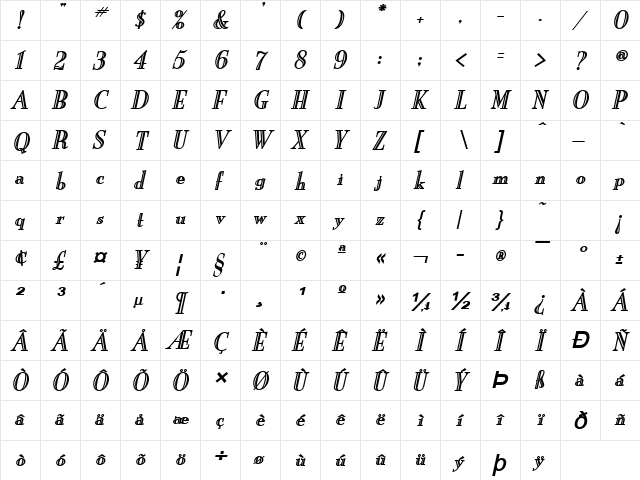
New England Engraved BoldItalic Font Preview
Design Context for New England Engraved Typeface
New England Engraved is built around its visual character rather than neutral utility — its distinctive forms are designed to make an impression at display sizes. Its italic angle brings a sense of urgency and motion to the letterforms. The heavy weight commands attention and anchors typographic hierarchies.
Font Pairing: Pair with a clean neutral sans-serif for body copy to let New England Engraved's character lead without overwhelming the composition.
Pro Tip: Treat New England Engraved as the centrepiece of your typographic hierarchy. One strong heading set in a decorative face can carry an entire layout.